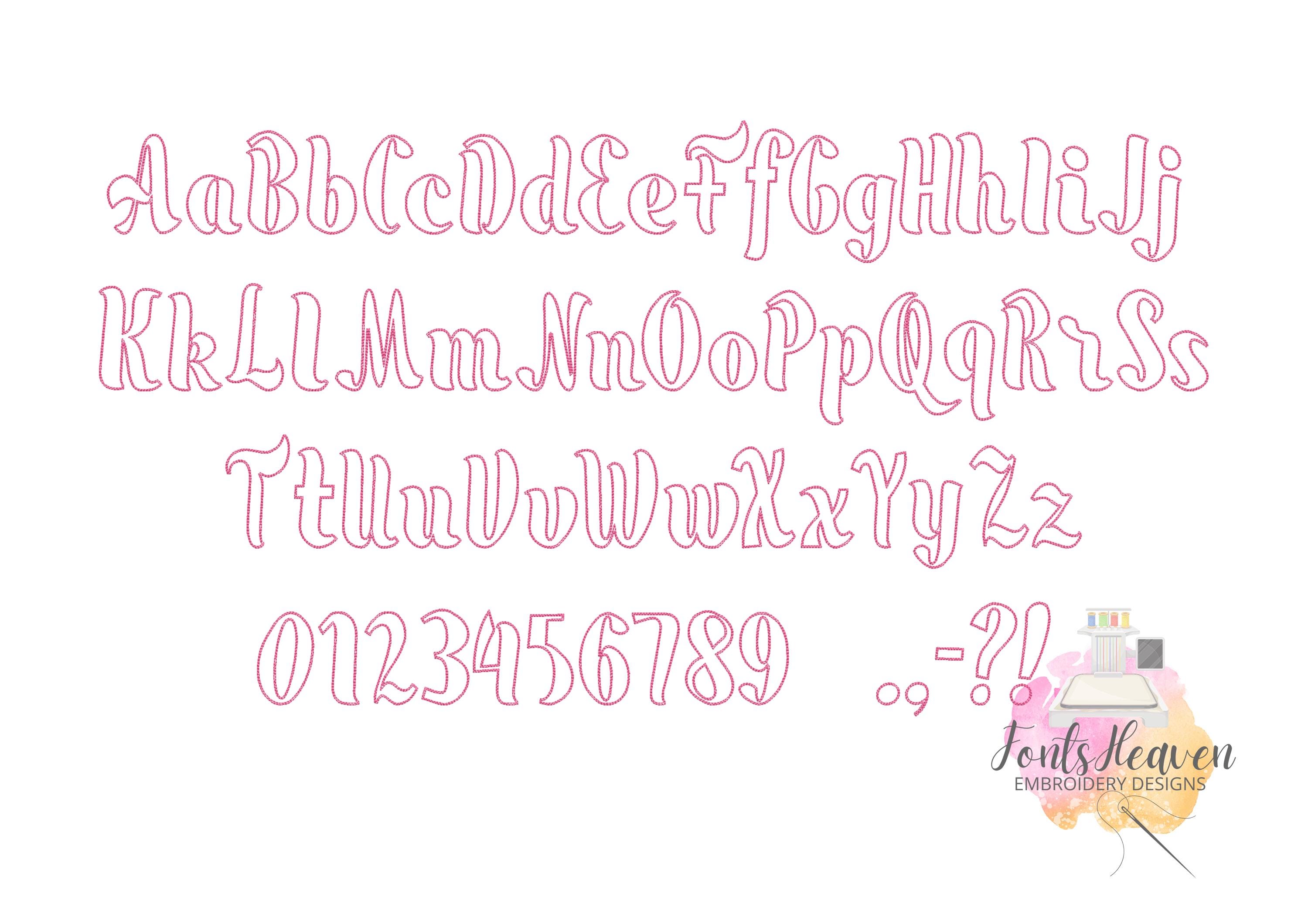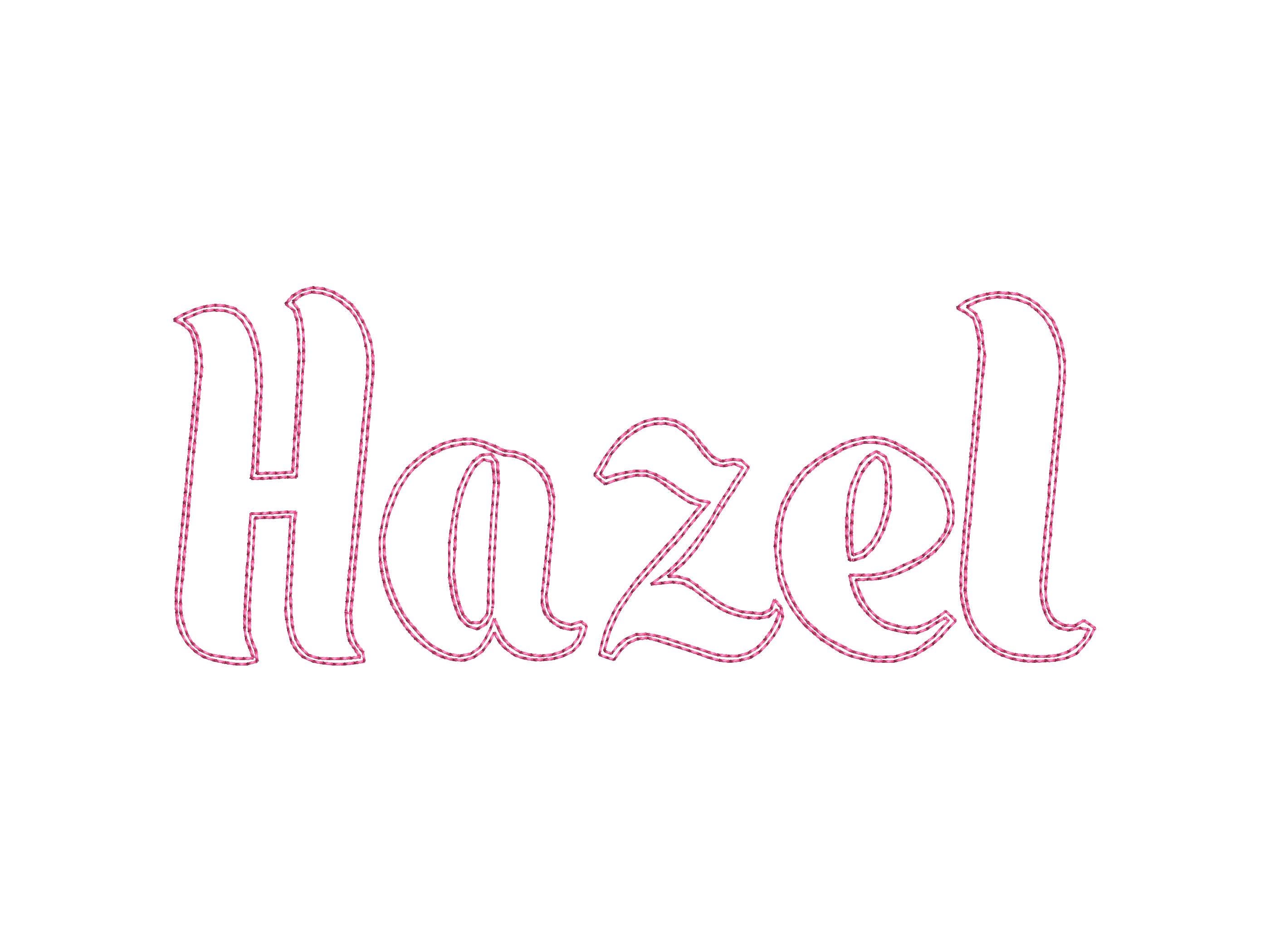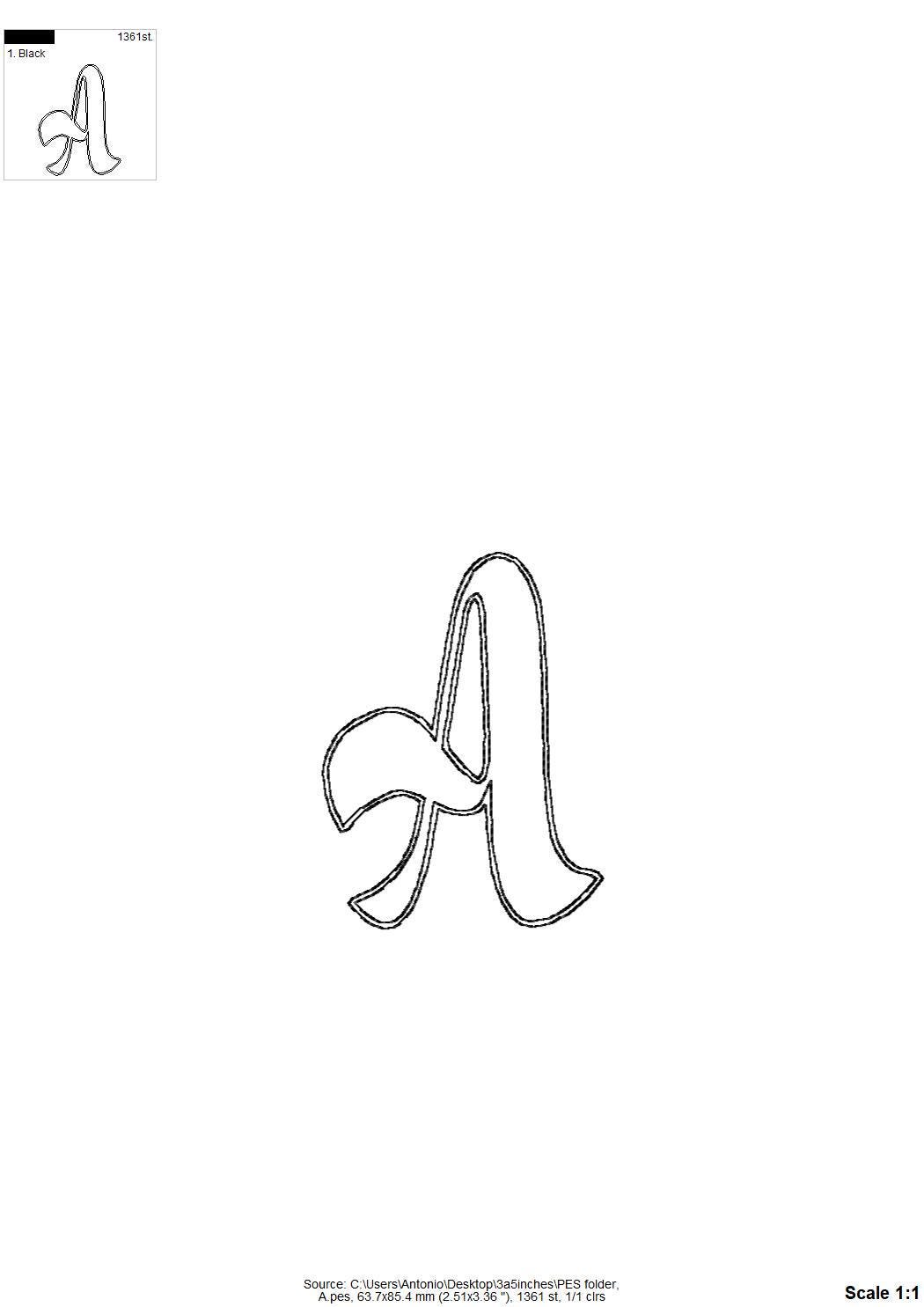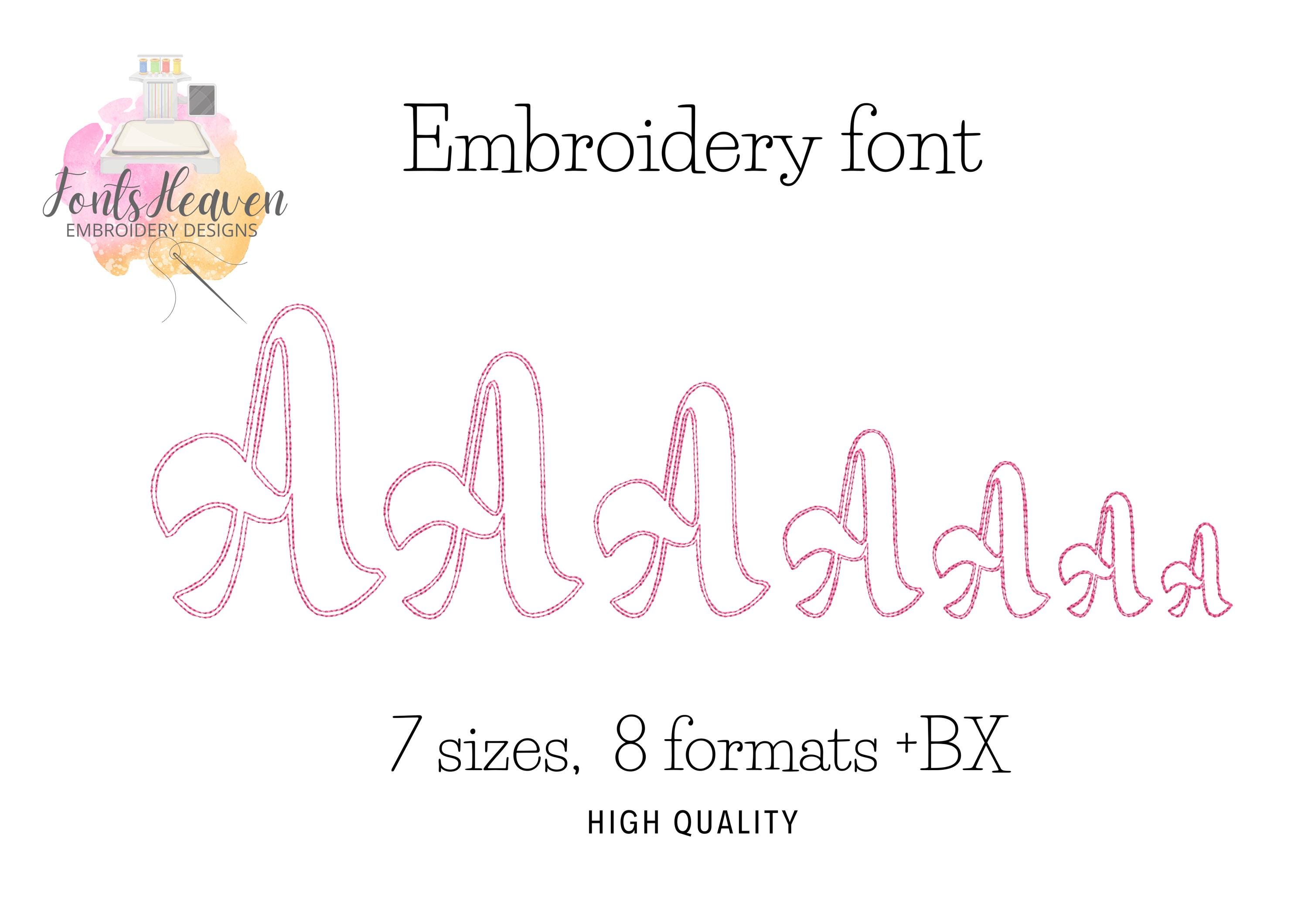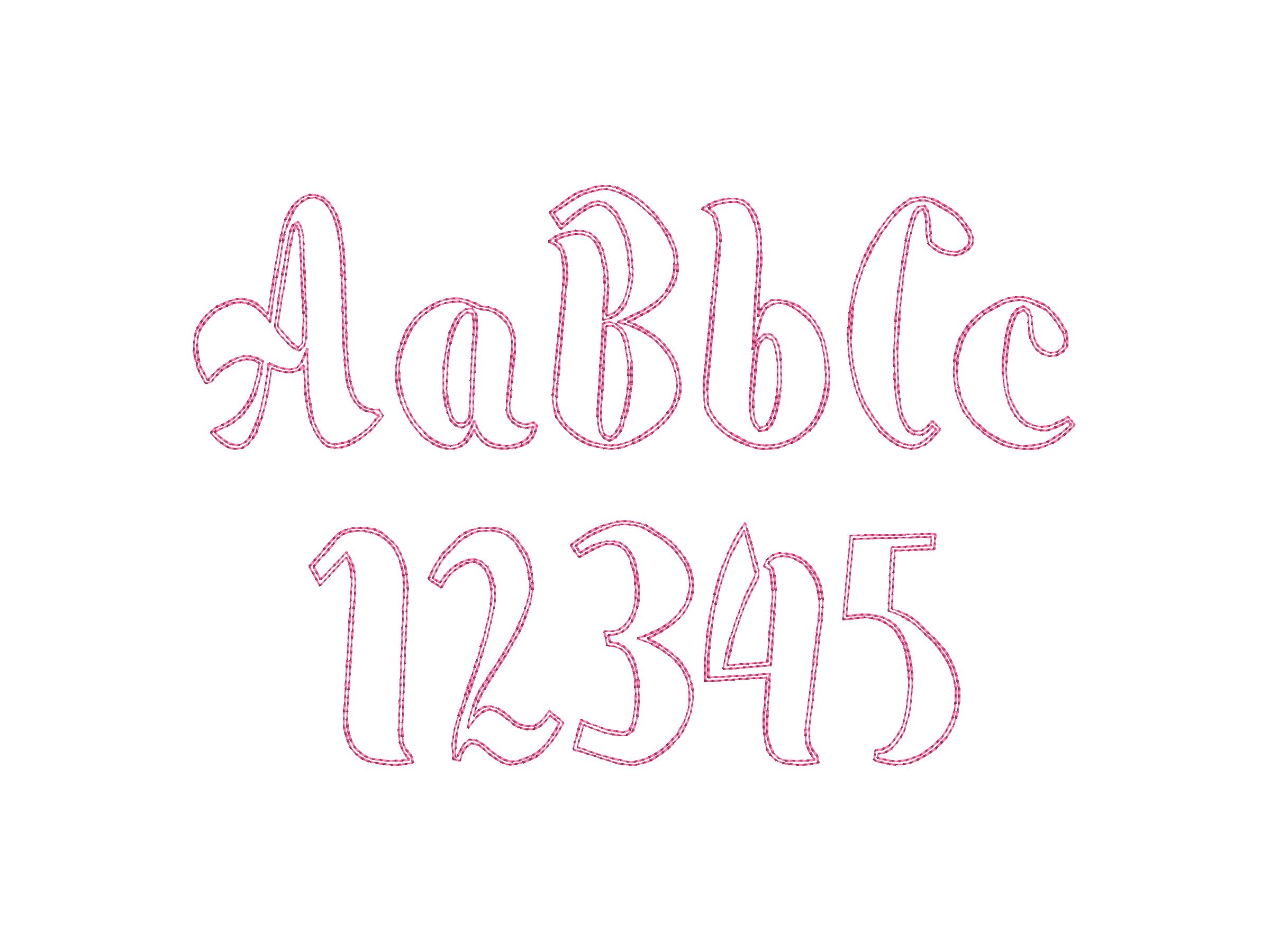
Quick light stitch outline FONT machine embroidery designs Girly monogram alphabet letters numbers multiple sizes 1.5 up to 4.5 inch, BX
Uppercase and lowercase letters, numbers, and punctuation.